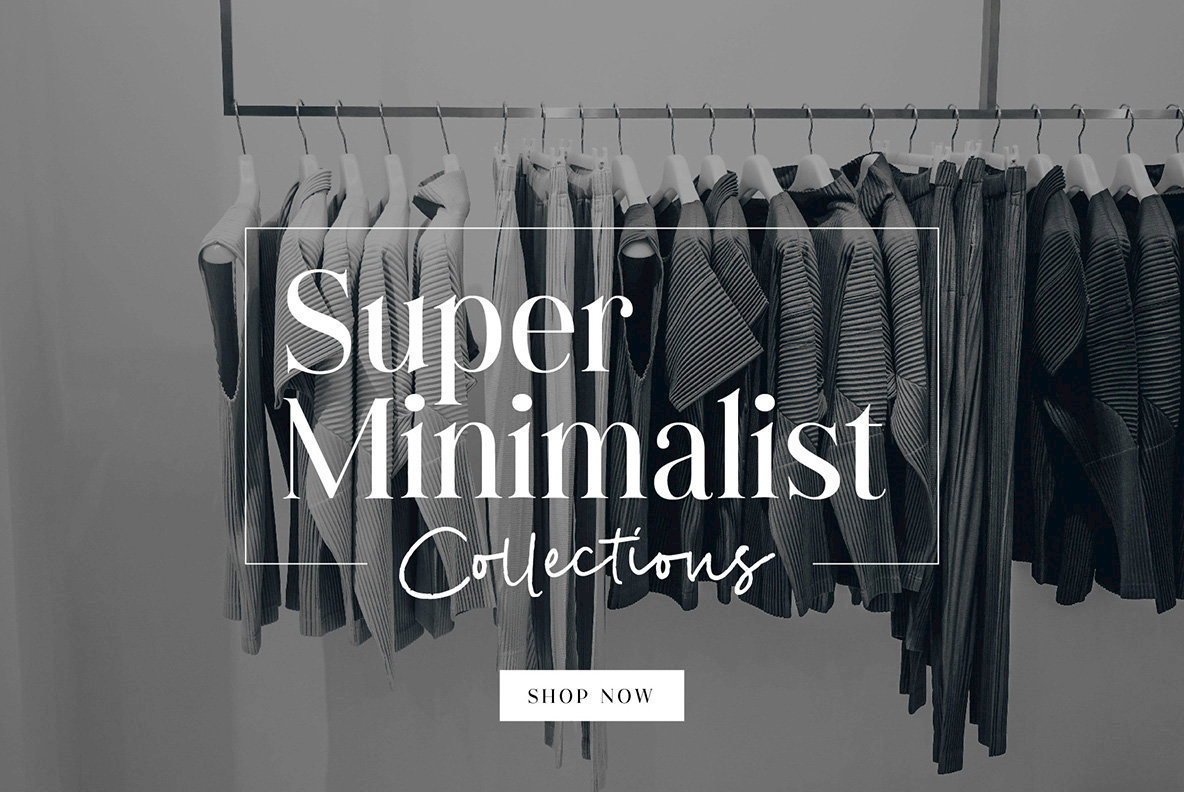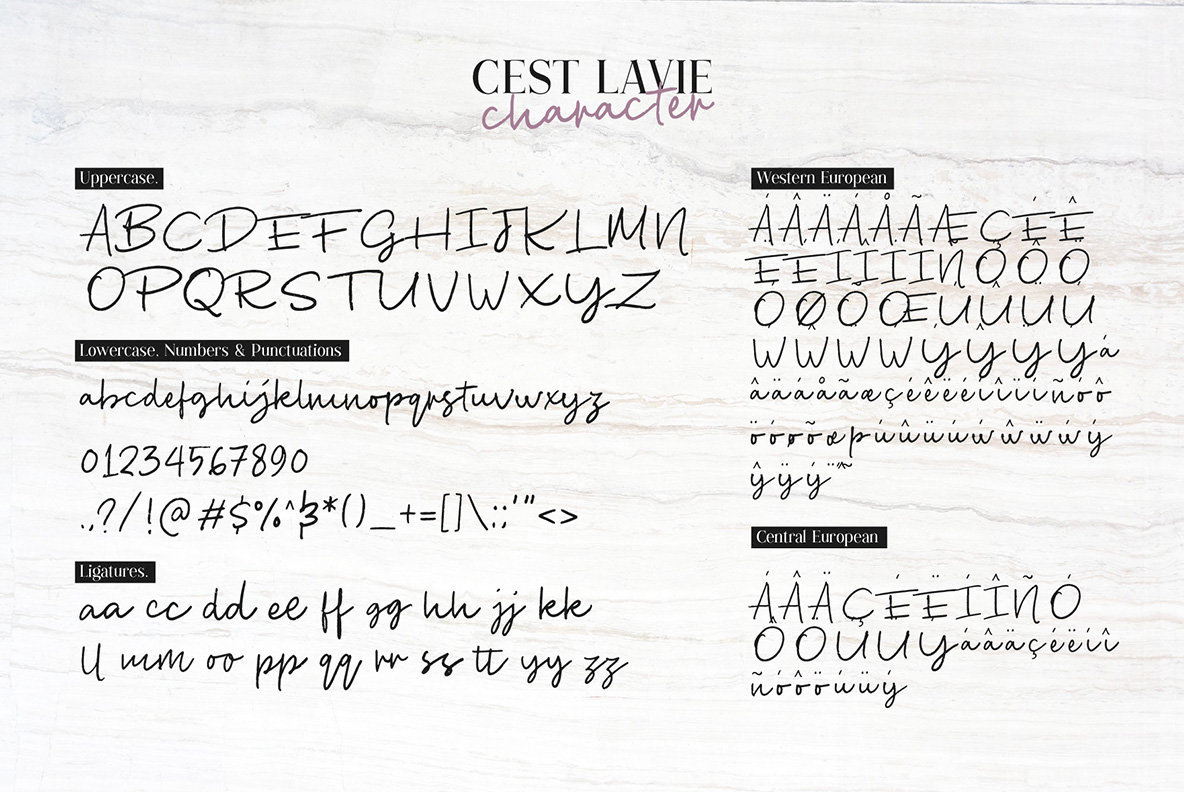
Cest Lavie Font Duo
Cest Lavie Script
Cest Lavie Serif
Embrace the dynamic interplay of moods with the Cest Lavie Font Duo. This font set captures the dual essence of life by combining the refined sophistication of a serif typeface with the spirited charm of a handwritten script. Cest Lavie draws inspiration from the French phrase "C'est la vie," underscoring life's blend of seriousness and joy. Designed for versatility, the Cest Lavie Font Duo offers both a handwritten script, reflecting the freedom and fluidity of personal expression, and a meticulously crafted serif font that embodies clarity and structure. This harmonious pairing is ideal for design projects requiring a touch of both personality and professionalism.Cest Lavie Font Duo: Balancing Elegance and Playfulness